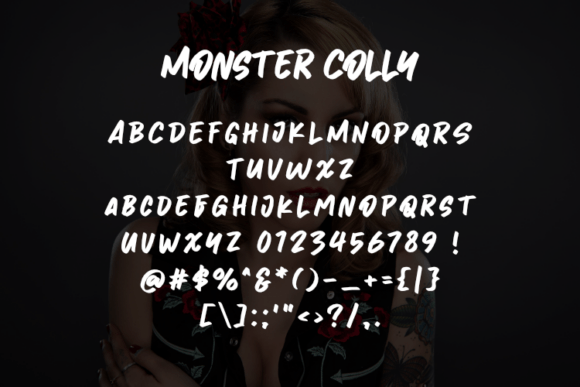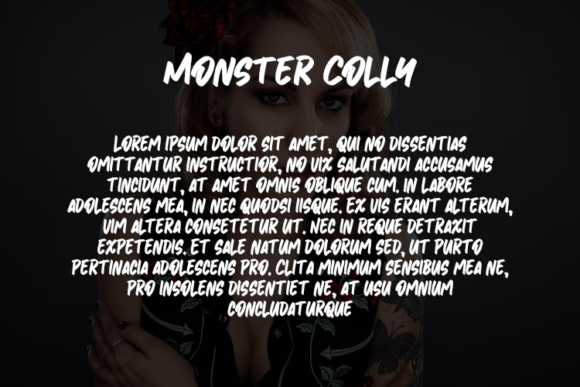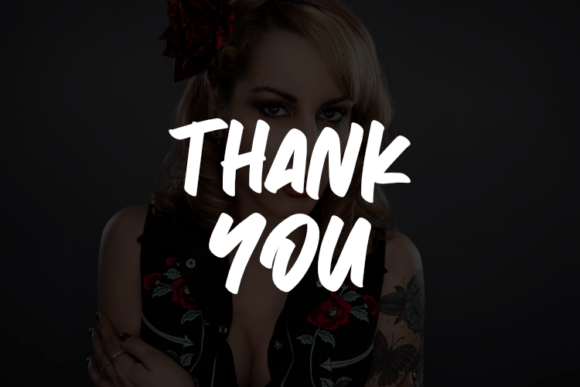
Introduction to Monster Colly Font
Have you ever found yourself staring at a blank canvas, waiting for that perfect design to emerge? It’s a moment every designer knows – the spark that ignites a creative project and sets your imagination ablaze. For those who crave a unique edge in their designs, Monster Colly Font is here to breathe new life into your work.
This high-quality font is not just a design resource, but a game-changer for creatives seeking to transcend ordinary boundaries. With its adaptability and sophisticated style, Monster Colly Font is the ultimate choice for designers who demand the best. Whether you’re working on a free download or a complex design, this versatile font is sure to captivate and mesmerize, making it a valuable addition to any designer’s toolkit.
Key Features of Monster Colly Font
- High-quality font with a unique, playful design suitable for creative projects.
- Transparent background, allowing for easy layering and customization in design applications.
- Medium to large font size, with an average size of 120-150 pixels, making it suitable for headings and titles.
- Perfect for use in children’s books, magazines, and other design projects requiring a fun and playful tone.
Honest Review: Monster Colly Font
I recently stumbled upon the Monster Colly Font, a free design resource that caught my attention. The high quality of the font is undeniable, with clean lines and a unique character set that makes it perfect for creative projects.
- ✨ The transparent background of the font makes it easy to use on any design element.
- ✨ The font’s versatility allows it to be used for a wide range of creative projects, from branding to editorial content.
However, I did encounter some limitations while using the Monster Colly Font. These include:
- ⚠️ Limited language support, which may be a problem for designers working on multilingual projects.
- ⚠️ The font’s bold weight may not be suitable for all design applications, particularly those requiring a more subtle look.
Overall, the Monster Colly Font is a great addition to any designer’s toolkit. Its high quality and unique character set make it an excellent choice for creative projects. While it may have some limitations, the benefits far outweigh the drawbacks, making it a must-have design resource.
Monster Colly Font is a high-quality, free design resource perfect for creative projects. This versatile font features a transparent background, making it easy to incorporate into various design elements.
Tips for Getting the Most Out of Monster Colly Font
To get the most out of Monster Colly Font, experiment with different font sizes, colors, and styles to create unique design elements. You can also combine it with other design resources to create a cohesive visual identity.
Monster Colly Font is suitable for a wide range of creative projects, including logos, brochures, social media graphics, and advertising materials. Its transparent background makes it easy to incorporate into various design elements, ensuring a seamless and professional finish.